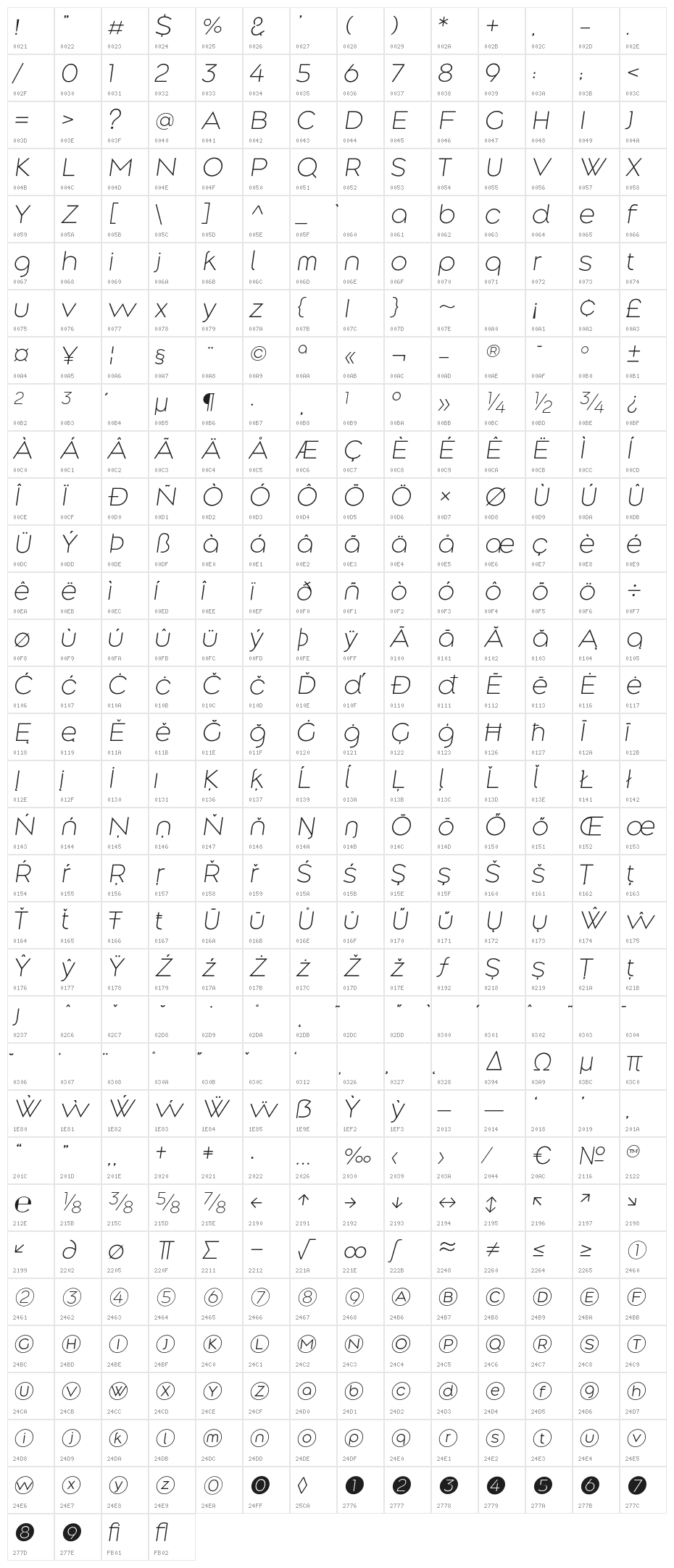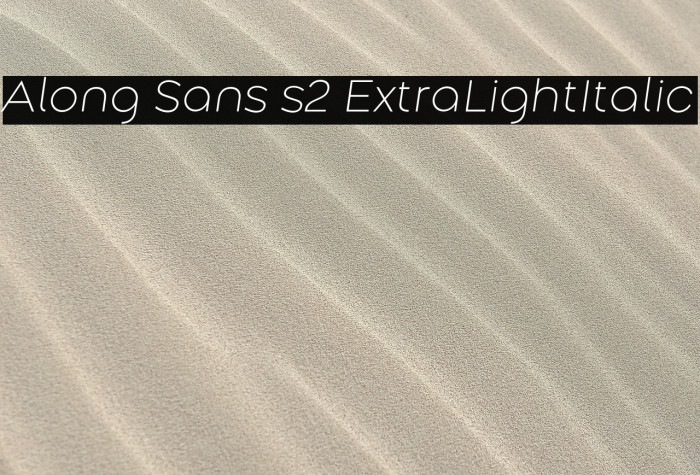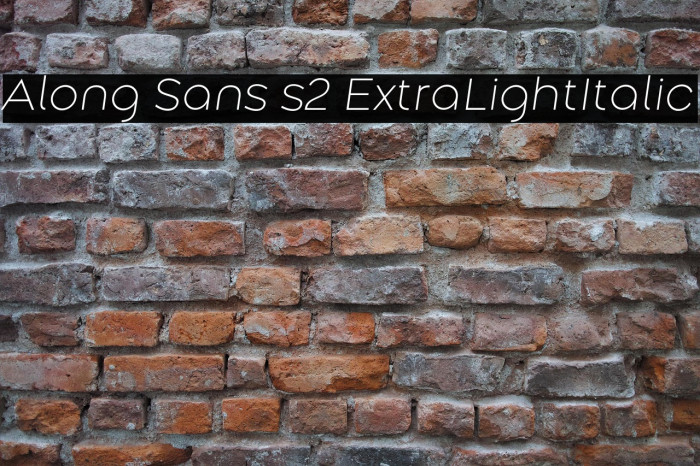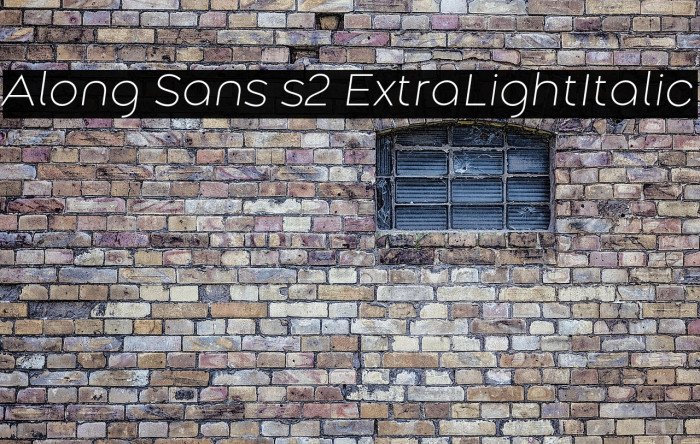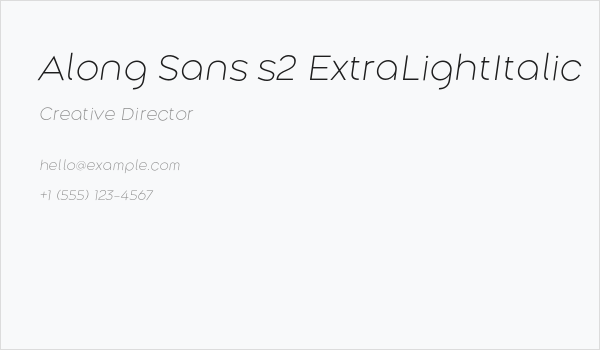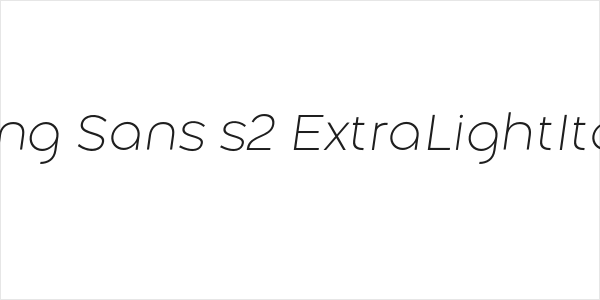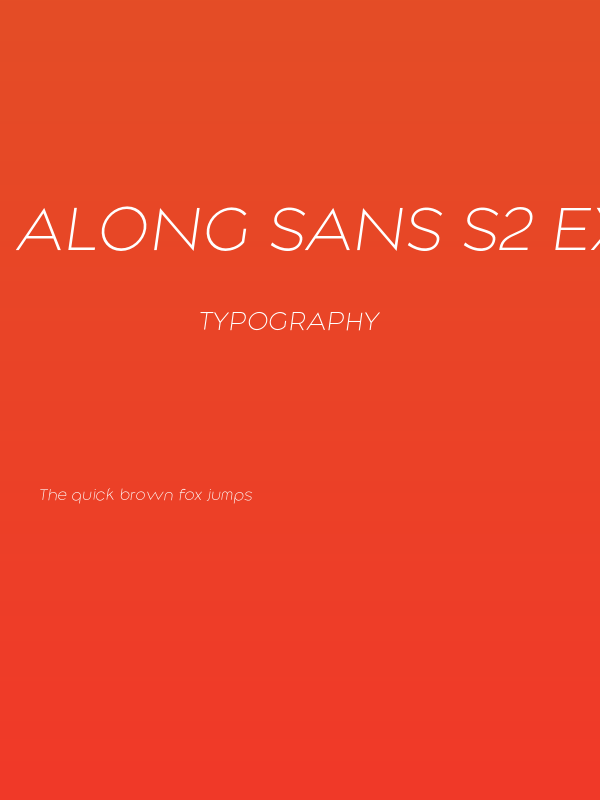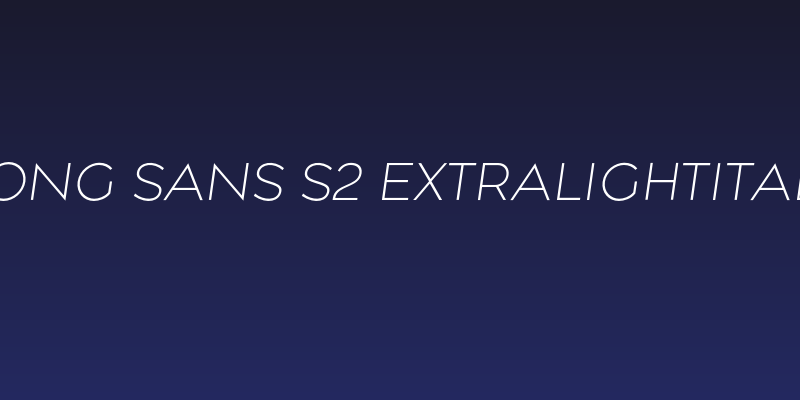
Along Sans s2 ExtraLightItalic Font
Along Sans s2 ExtraLightItalic Description
This font exhibits a sleek and modern sans-serif style with an elegant italic slant. The characters are crafted with a minimalist approach, featuring clean lines and a consistent stroke width that conveys a sense of sophistication and clarity. The extra light weight adds a delicate touch, making it ideal for creating a refined and airy aesthetic. The font maintains a uniform character spacing, ensuring readability while preserving its stylish appearance. Its geometric shapes and subtle curves contribute to a contemporary look, suitable for various design applications.
| Proposed Projects | Ideal for fashion magazines, luxury branding, minimalist websites, and elegant invitations. |